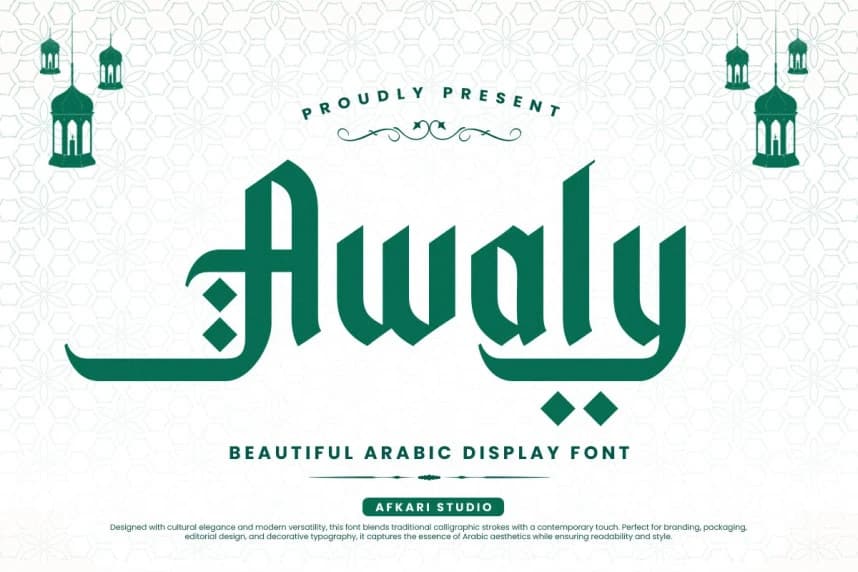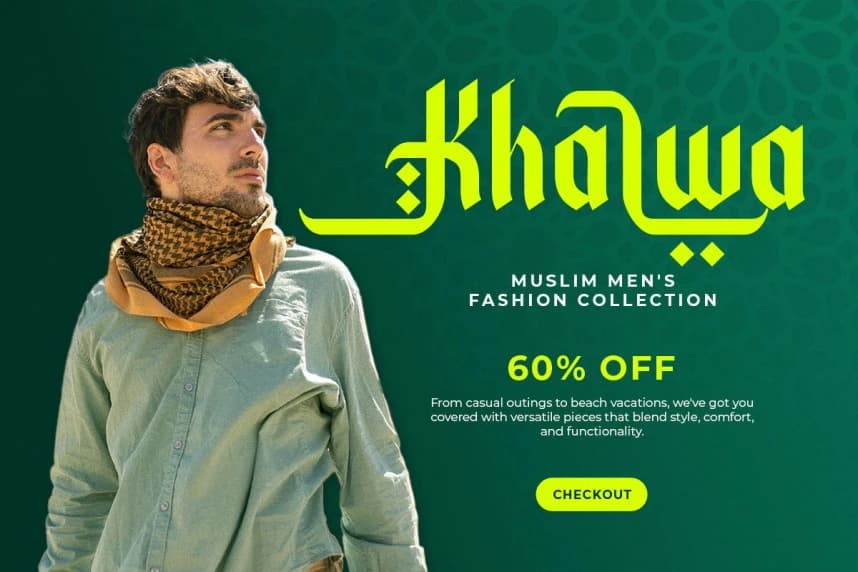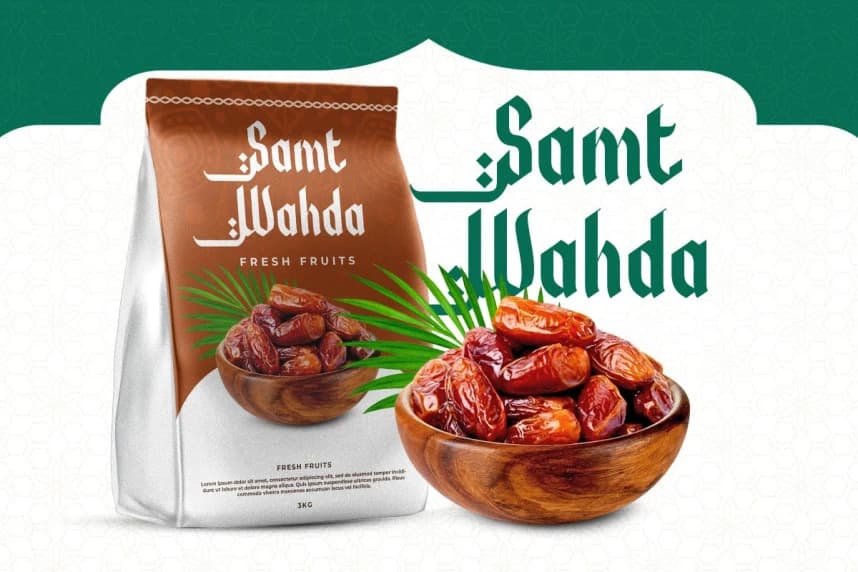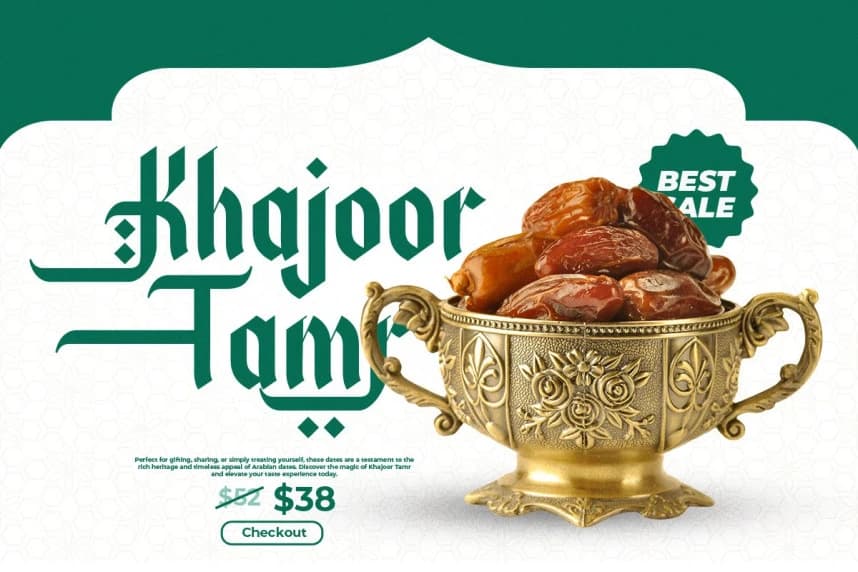
Awaly Arabic Font
Awaly Arabic Font is a beautifully crafted Arabic-style typeface that blends traditional calligraphic elegance with modern versatility. Designed to capture the fluidity and grace of Arabic letterforms, this font is perfect for branding, packaging, headlines, posters, and Islamic designs.